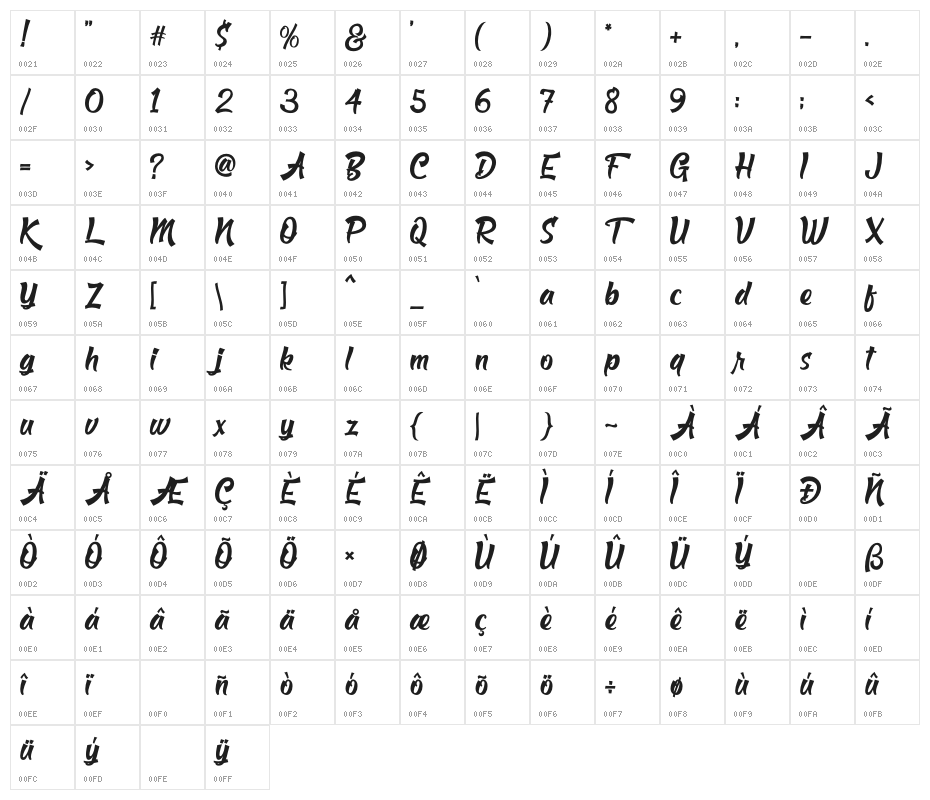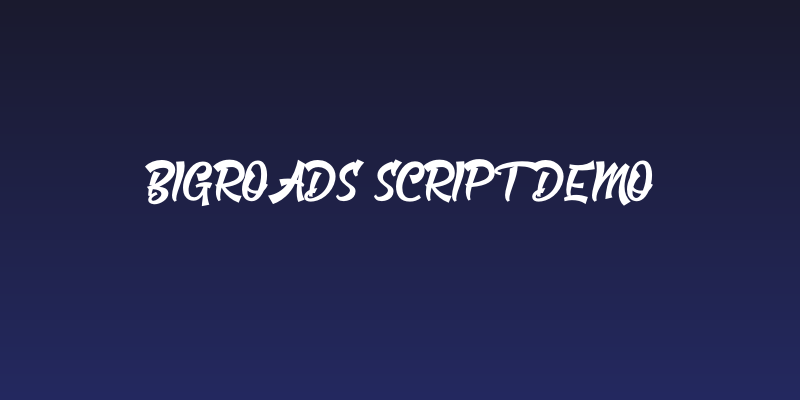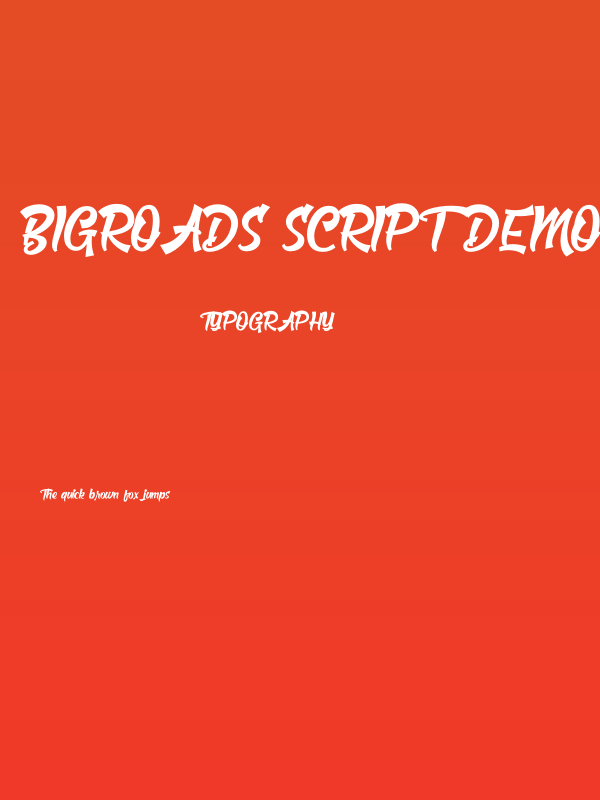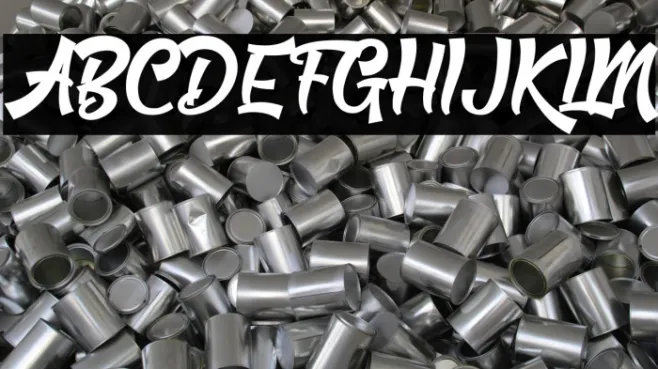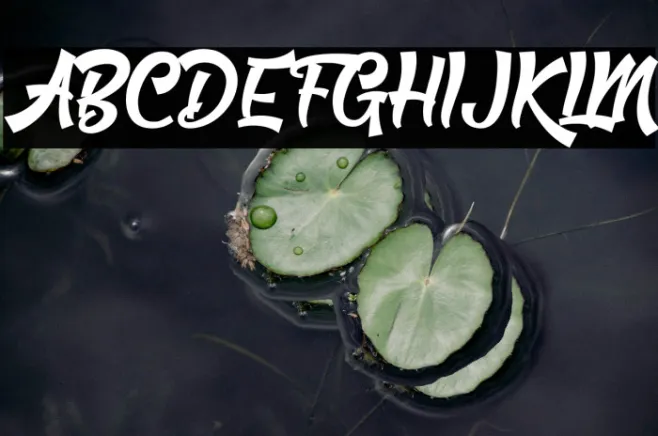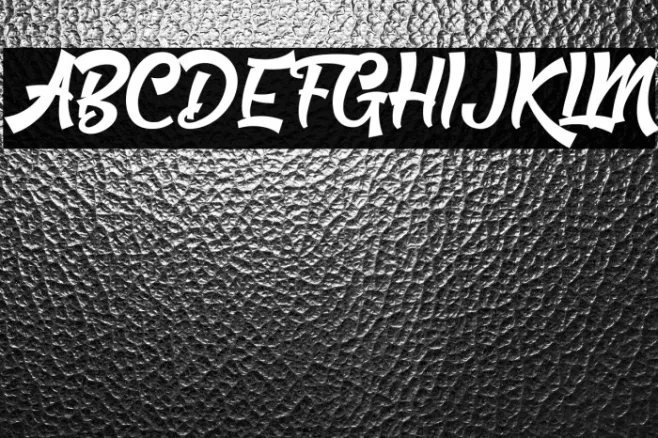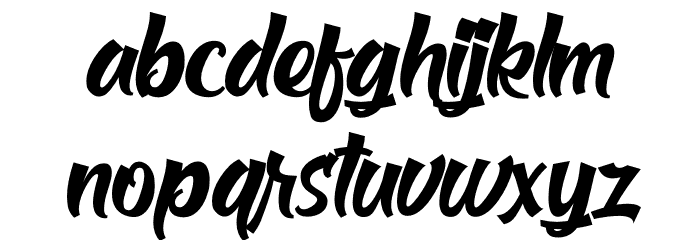
Bigroads Script Demo Font
Bigroads Script Demo Description
This font features a bold, dynamic script style with a strong presence. The letters are characterized by their sweeping curves and fluid strokes, giving a sense of motion and energy. The uppercase letters are particularly striking, with exaggerated flourishes and a slightly slanted orientation. The lowercase letters maintain the same energetic style, with a consistent flow that connects each character seamlessly. The numerals are bold and rounded, matching the overall aesthetic of the font. Special characters are designed with the same attention to detail, ensuring a cohesive look across all glyphs. This font is perfect for projects that require a bold and expressive typeface.
| Proposed Projects | Ideal for branding, logos, posters, and any design requiring a bold, expressive typeface. |